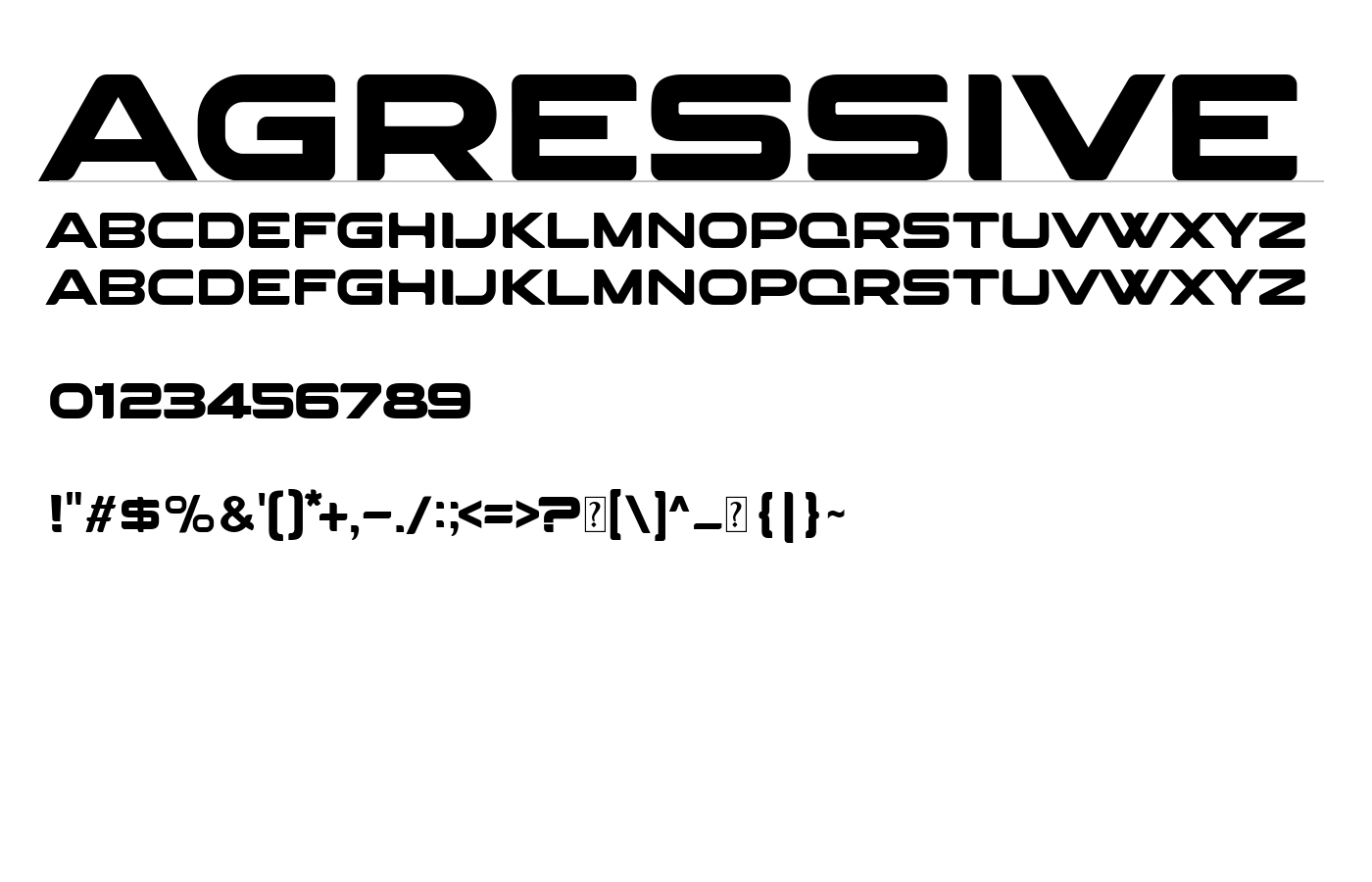
AGRESSIVE is a bold, geometric sans serif font with a strong, futuristic feel. Its wide letterforms, sharp angles, and consistent stroke weight give it a powerful and dynamic presence, making it ideal for impactful headlines, branding, and modern design projects that demand attention. The font’s clean, sturdy shapes communicate confidence and energy, suited to tech, sports, or automotive industries.
AGRESSIVE Font
About AGRESSIVE Font
| Font family | AGRESSIVE Font |
| Designer | Mahir Huseyn |
| Font subfamily | Bold, Italic |